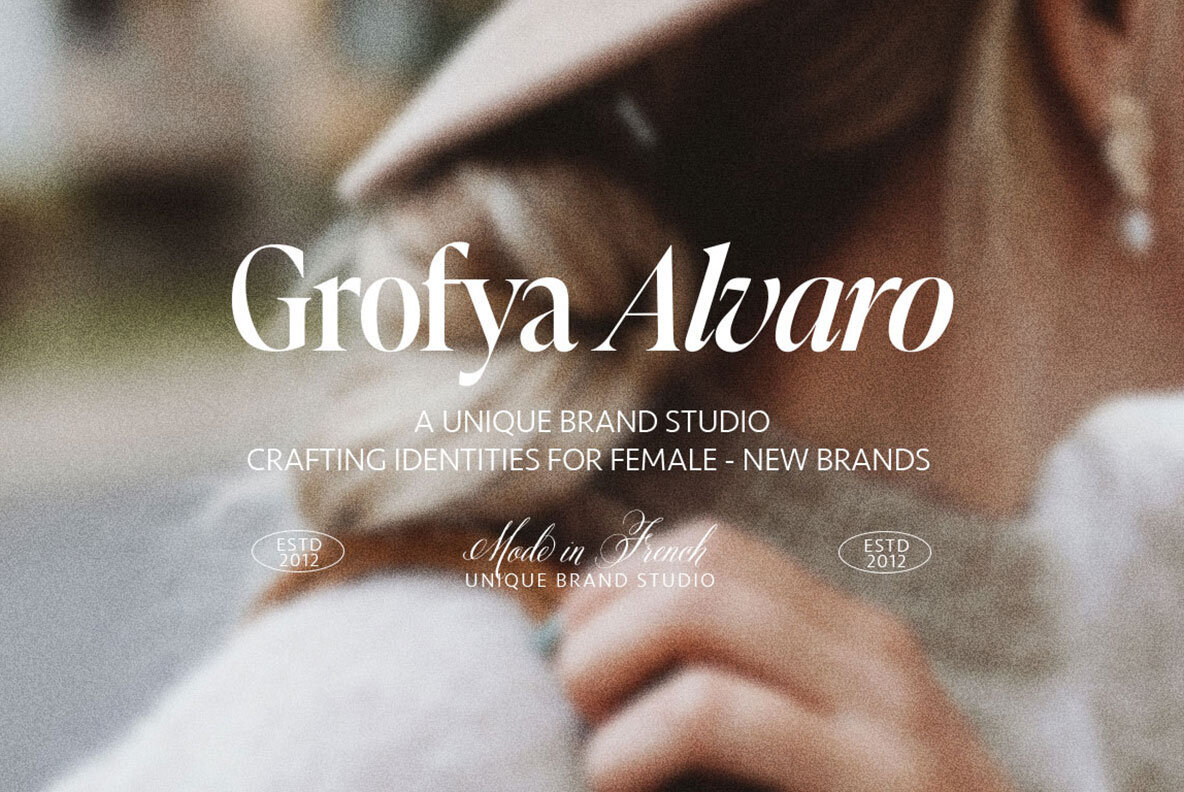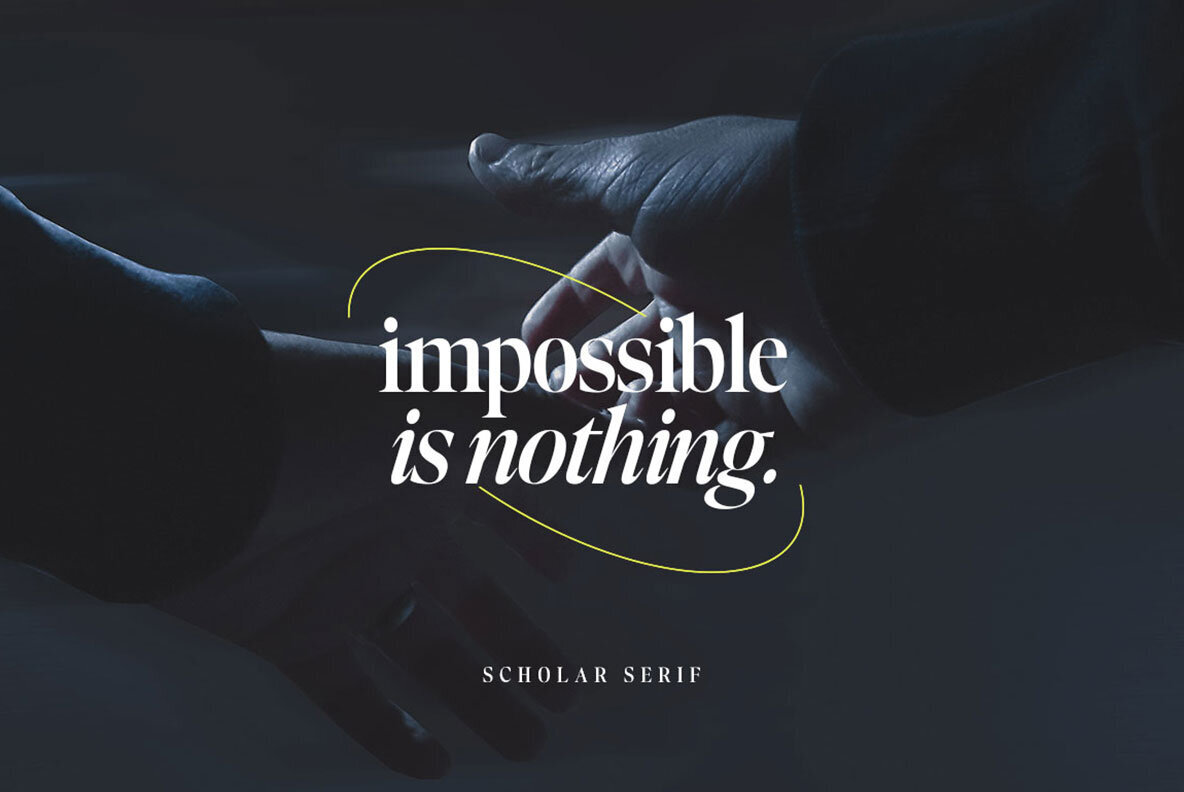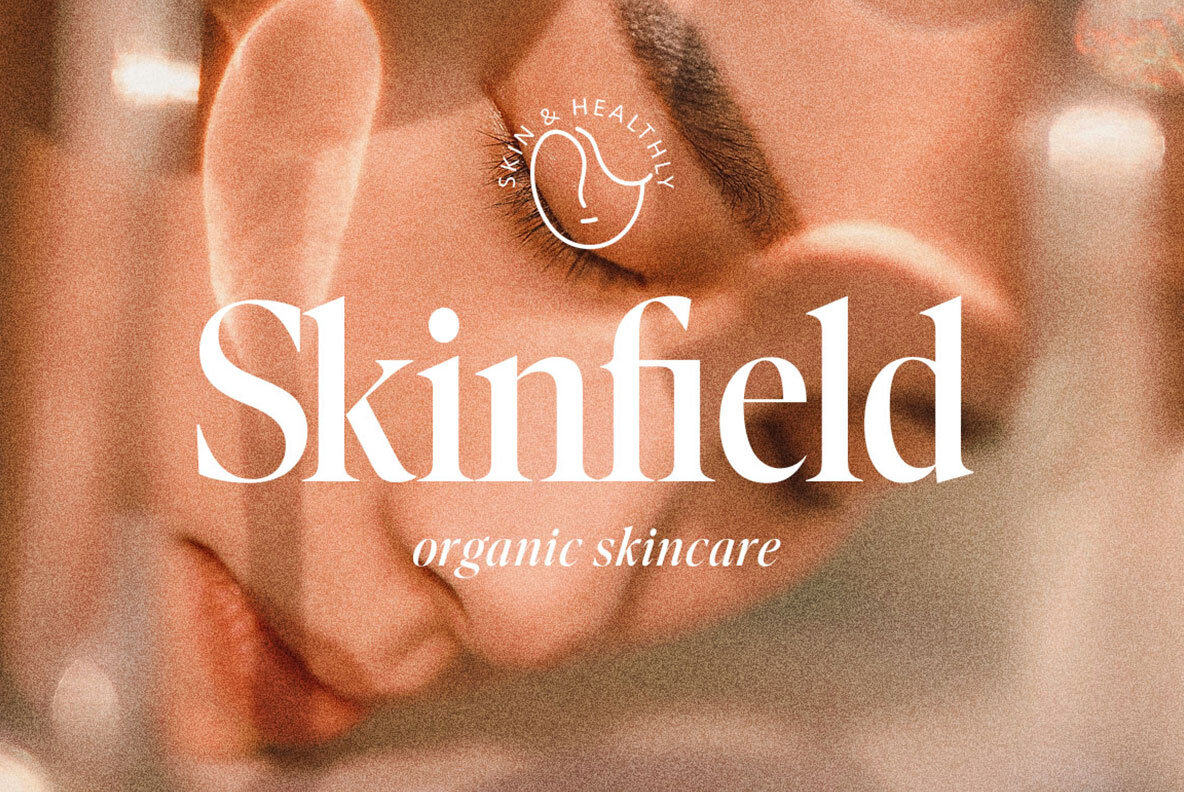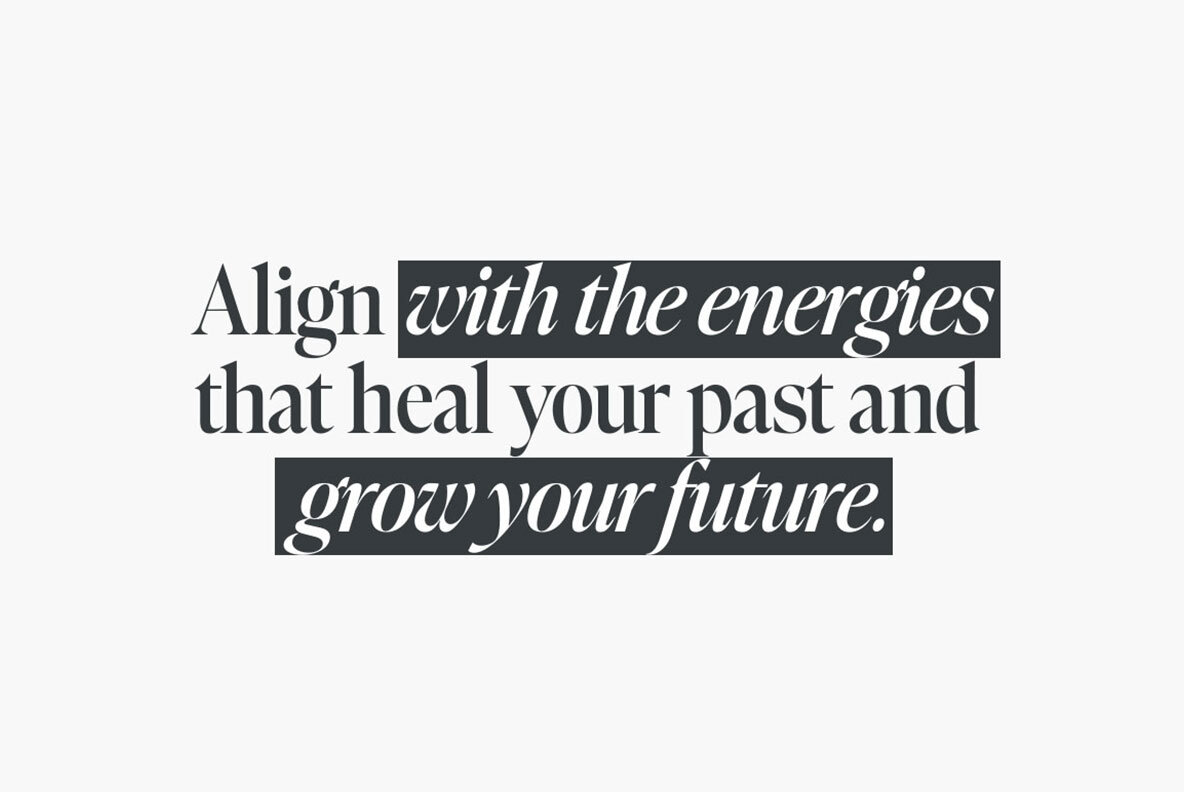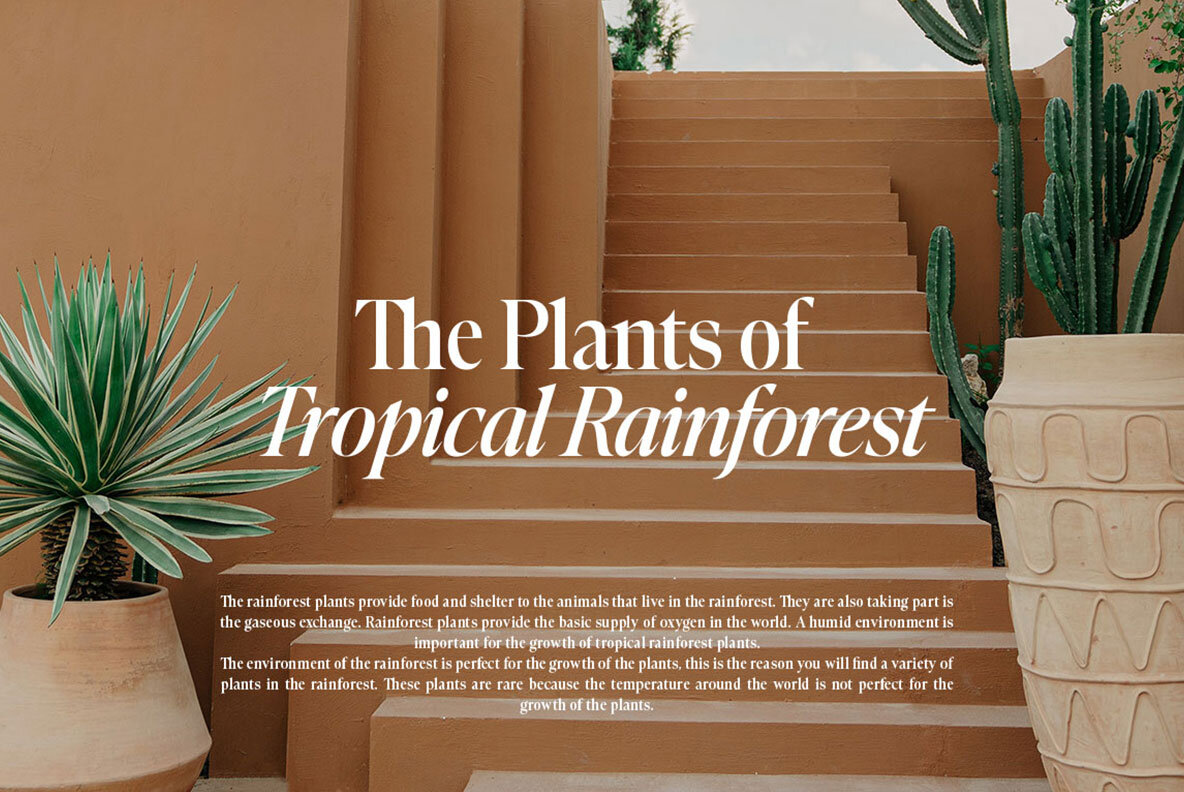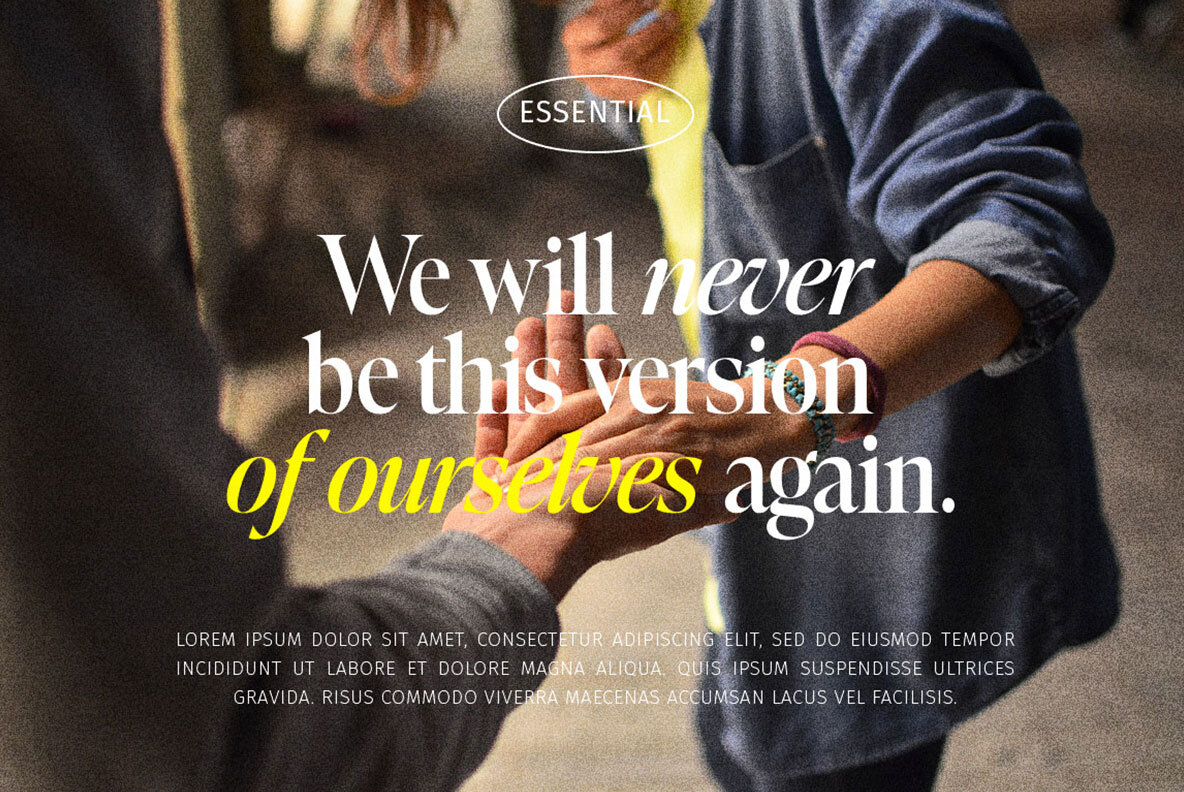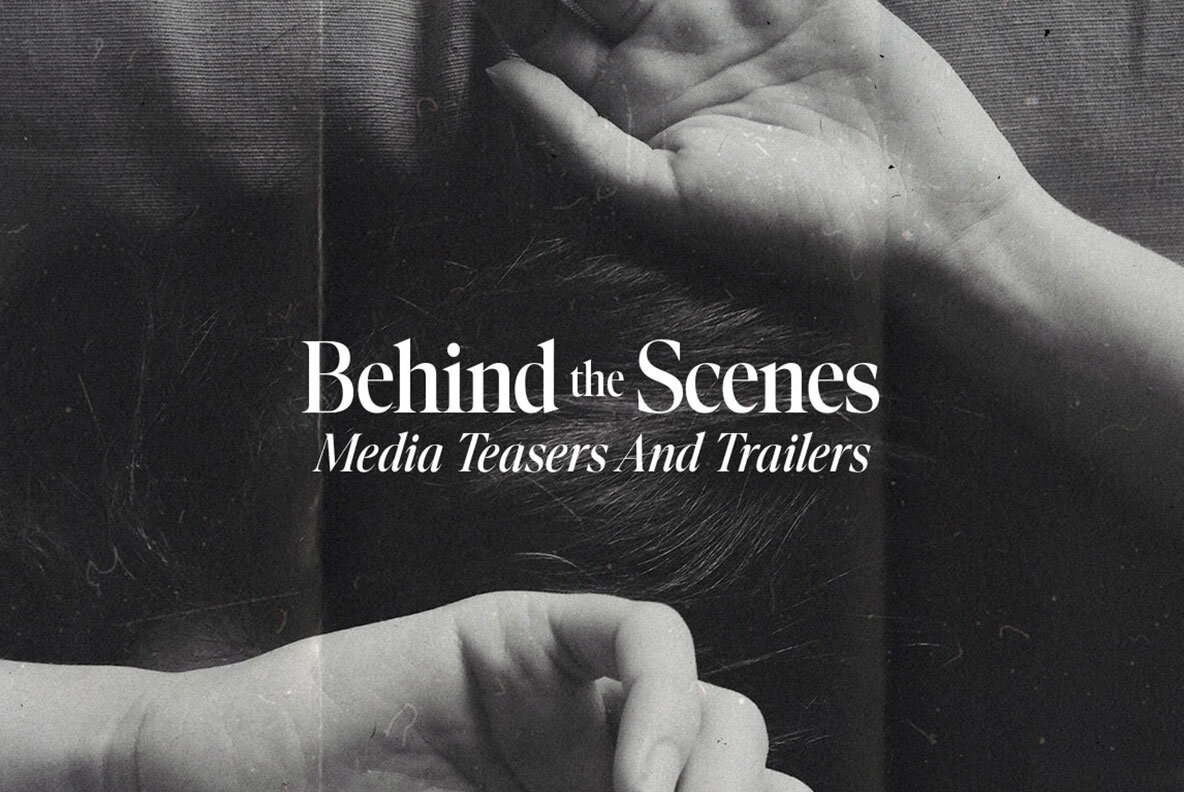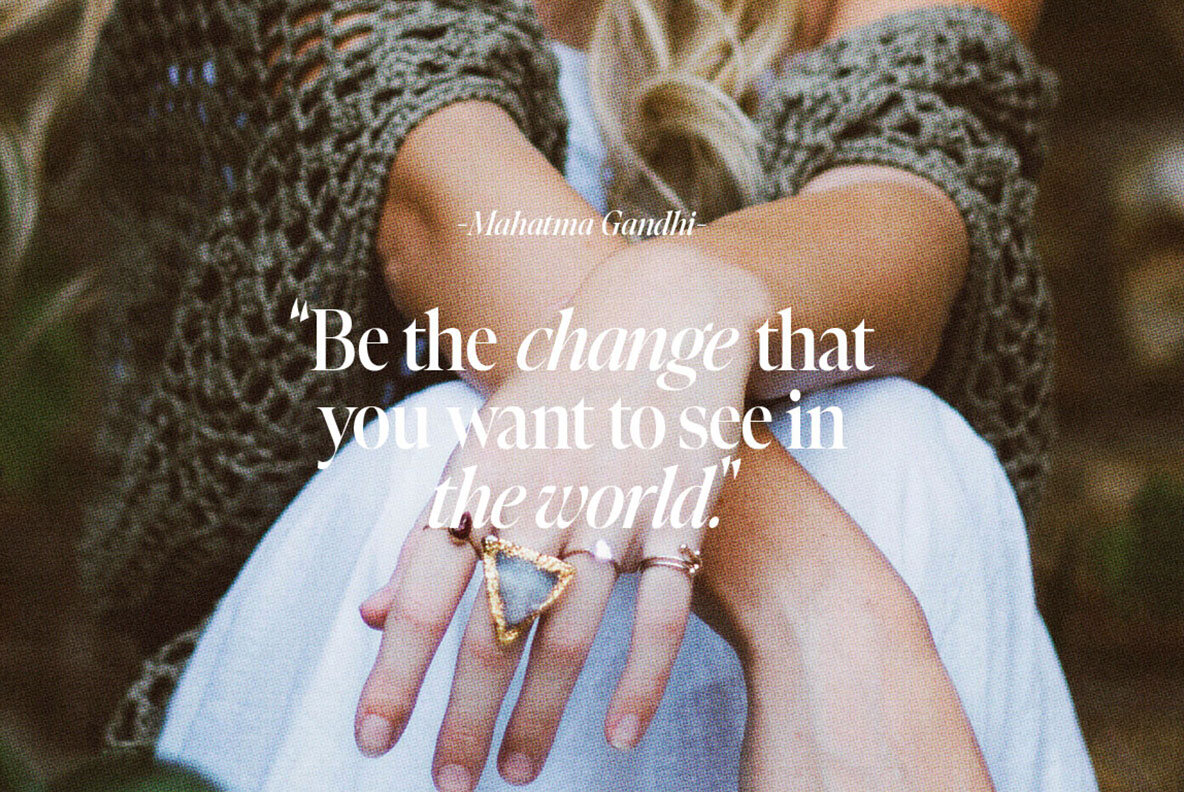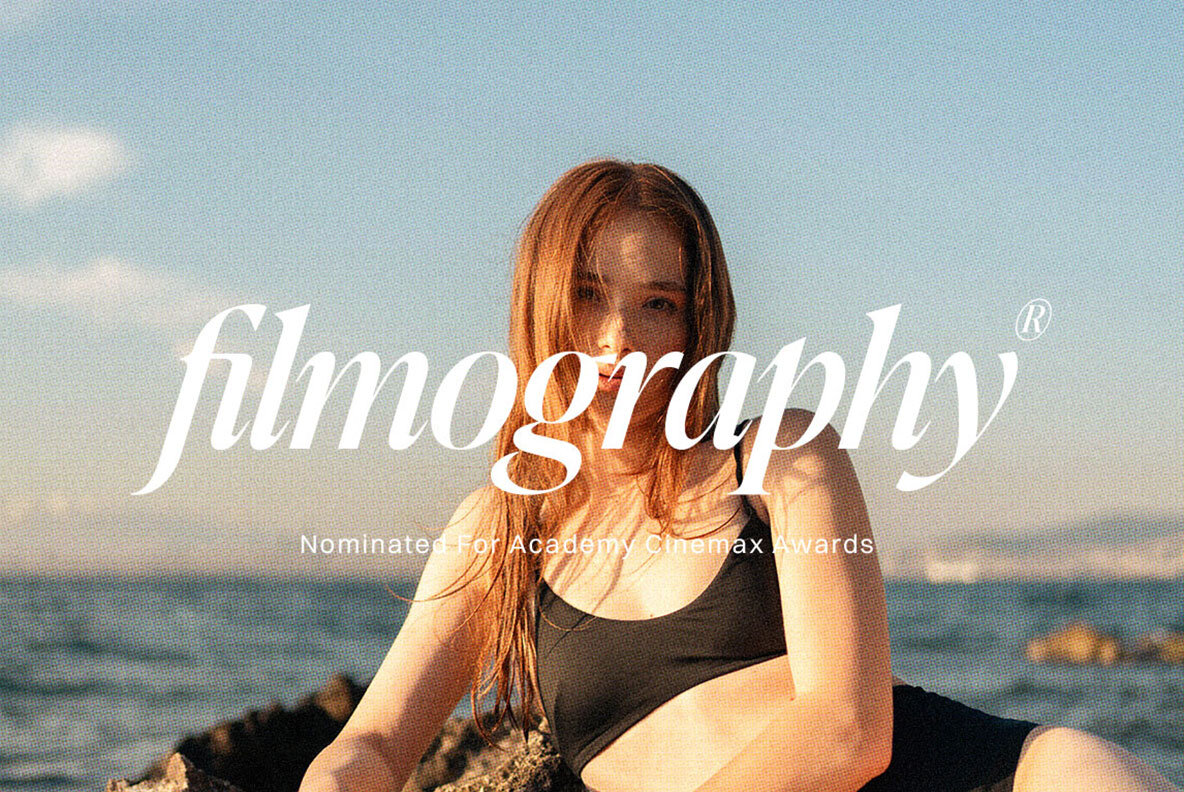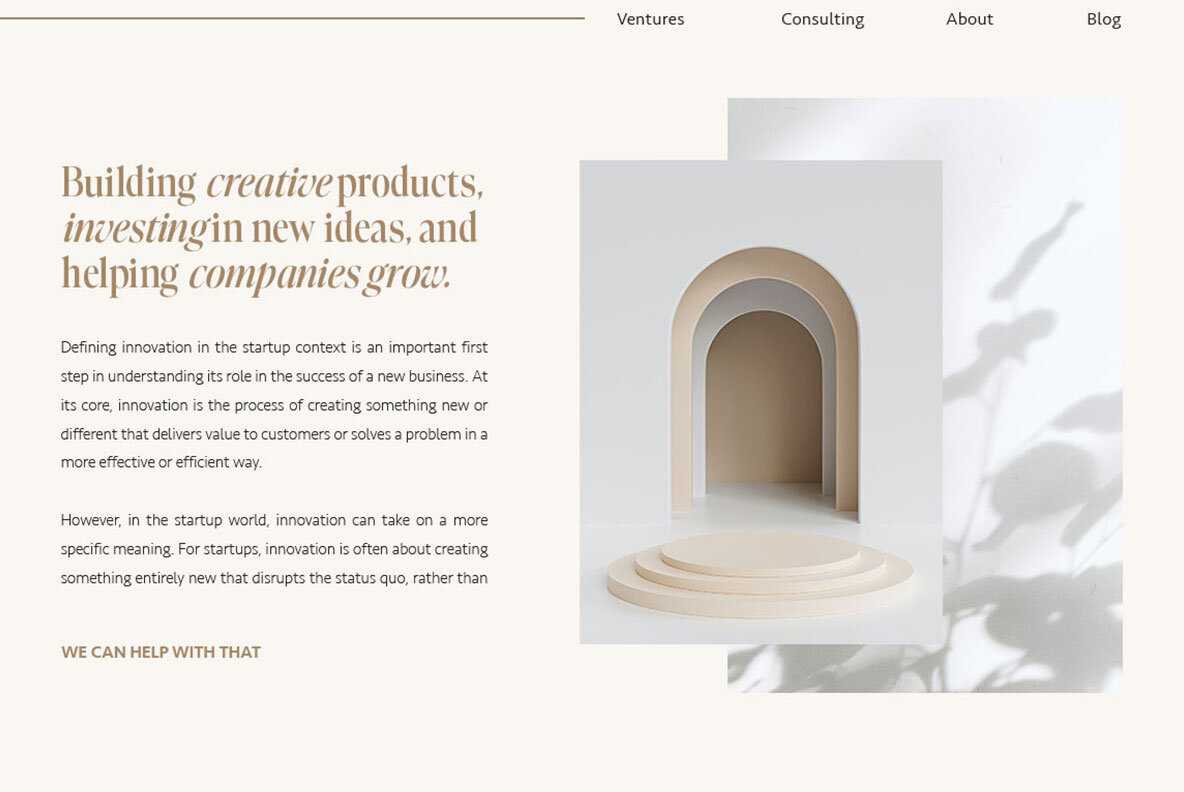
Scholar Font
Scholar is a meticulously designed editorial serif font featuring clean, smooth lines and tightly formed curves, paired with sharply contrasting serifs. This typeface series radiates elegance and confidence, making it a perfect choice for a variety of design needs. Available in two distinct font styles—Regular and Italic—Scholar is crafted to adapt to various design contexts. Whether your project involves creating nostalgic yet clean designs or working on distinct applications like headlines, magazines, logos, packaging, or editorials, Scholar fulfills all aesthetic and functional requirements.Scholar: A Classic Editorial Serif with Modern Sophistication
Versatile Typeface Options